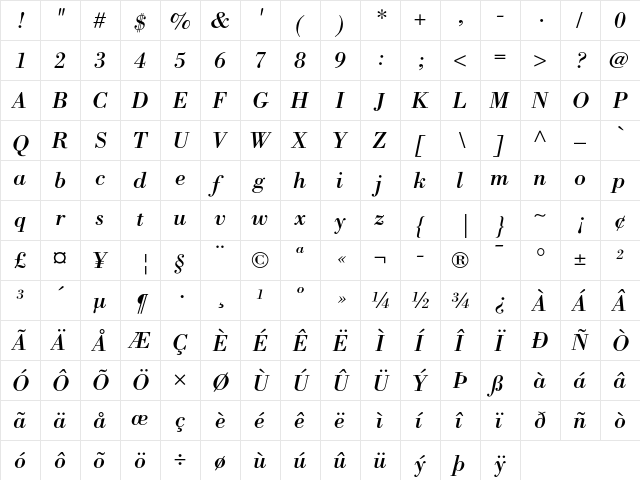
Bodoni LT Std Italic Font Preview
Bodoni LT Std Italic
Bodoni LT Std Italic Font Details
| Foundry | Linotype GmbH |
| Designer | Morris Fuller Benton |
Design Context for Bodoni LT Std Typeface
Bodoni LT Std offers clean, dependable letterforms without strong stylistic allegiance, making it a practical choice for designers who need flexibility. The slanted form adds forward momentum and visual energy. Its slender proportions lend an understated elegance to any composition.
Pro Tip: Use Bodoni LT Std for emphasis, pull quotes, and subheadings where its slanted energy can add rhythm to the layout.